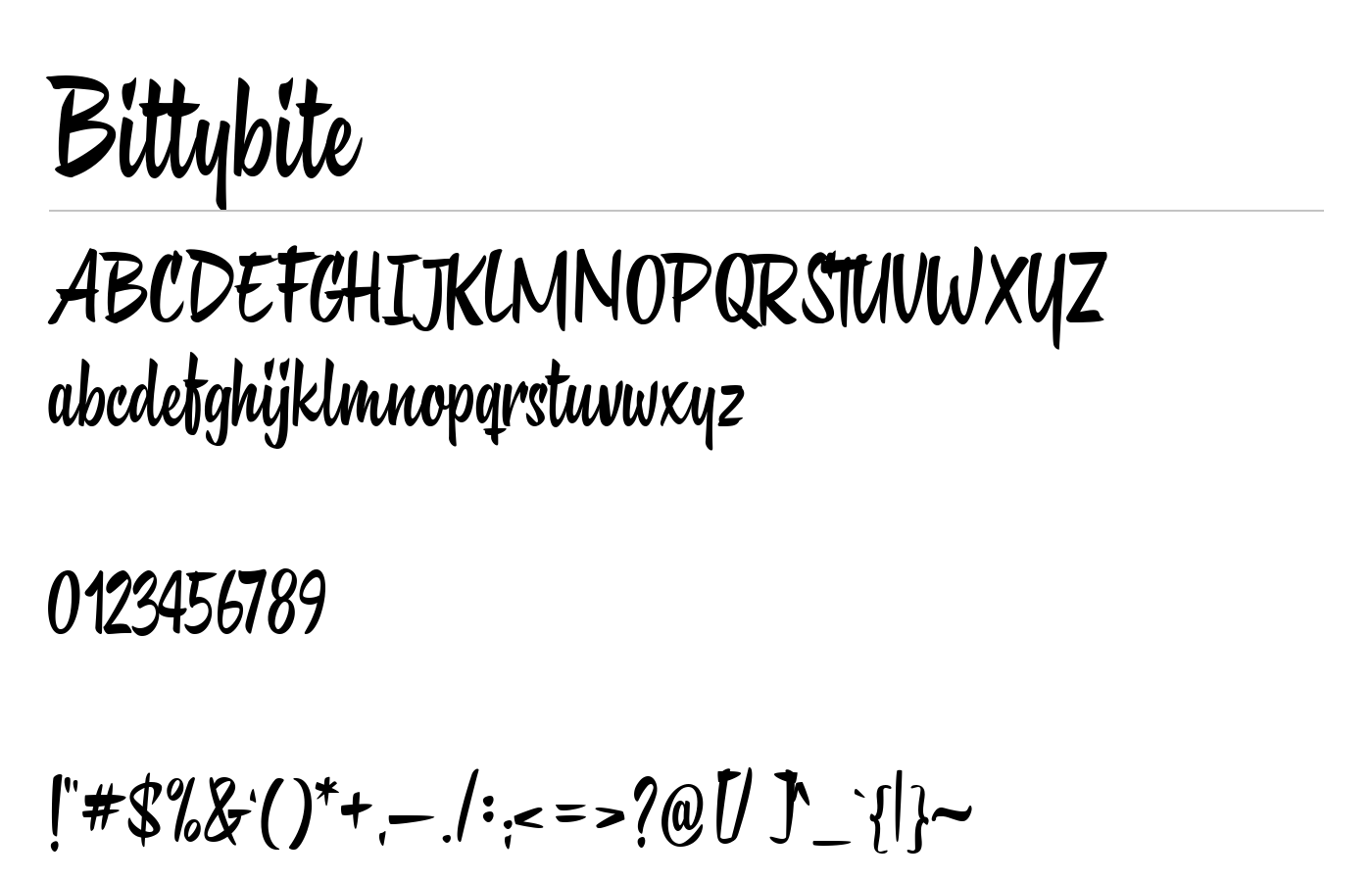
Bittybite is a lively and informal script font characterized by its bold, brush-like strokes and playful, hand-drawn appearance. Its tall x-height, slightly condensed letterforms, and energetic rhythm give it a friendly and dynamic feel, making it perfect for casual branding, creative posters, and eye-catching headlines where personality and approachability are key. This font works well in projects that want to convey warmth and creativity without sacrificing readability.
Bittybite Font